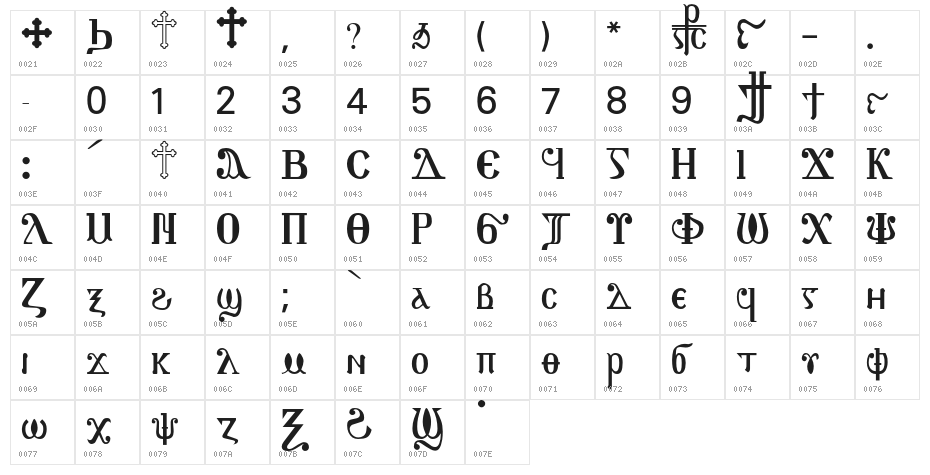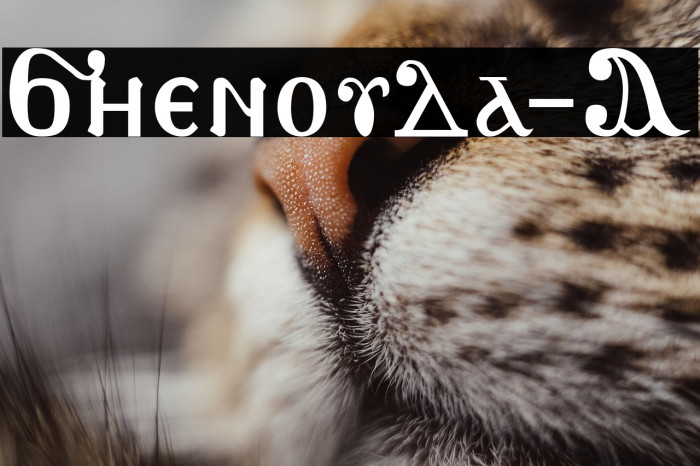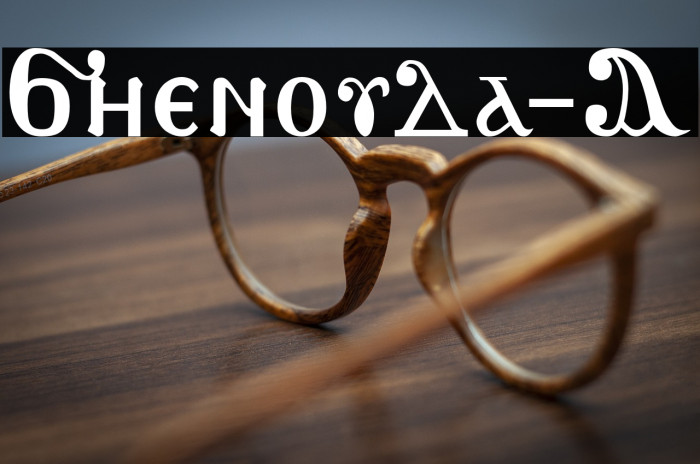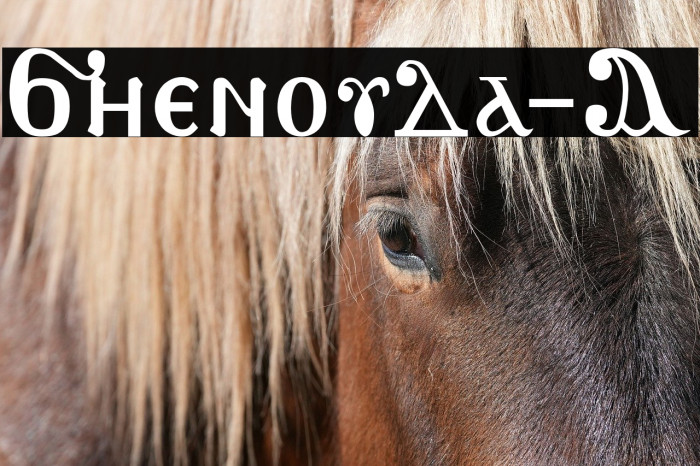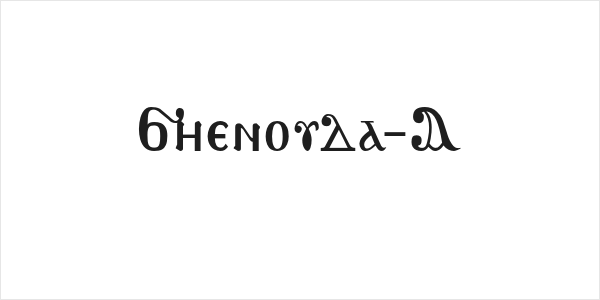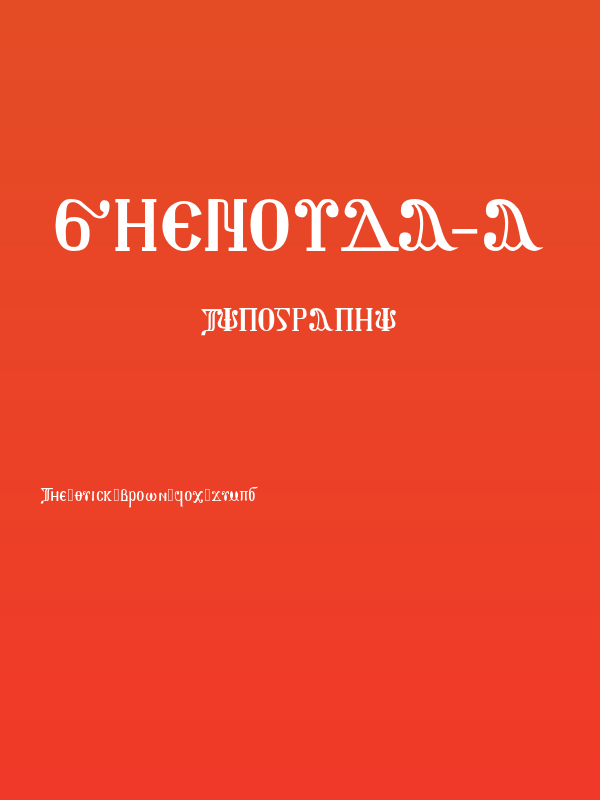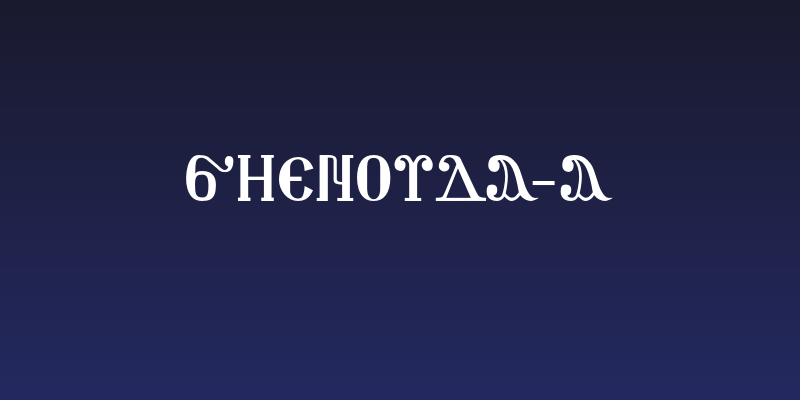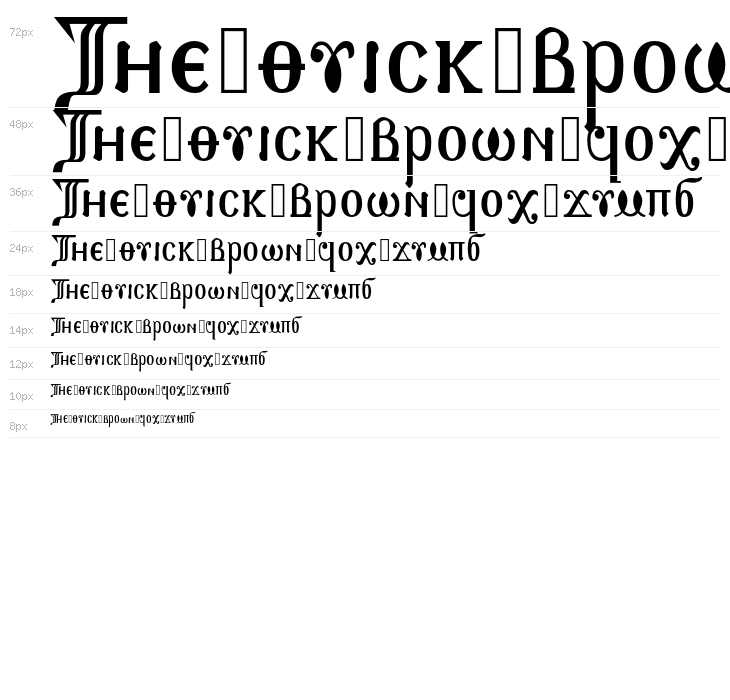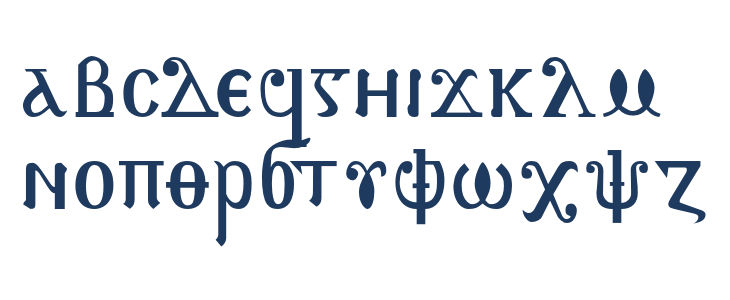
Shenouda-A Font
Shenouda-A Description
This font features a unique blend of traditional and modern elements, characterized by its distinct, ornate serifs and bold, angular shapes. The uppercase letters exhibit a strong presence with their wide, sweeping curves and sharp edges, while the lowercase letters maintain a consistent style with slightly softer lines. The numerals are bold and clear, ensuring readability. Special characters are designed with intricate details, adding a decorative touch. The overall aesthetic is reminiscent of historical scripts, yet it maintains a contemporary feel, making it versatile for various design applications.